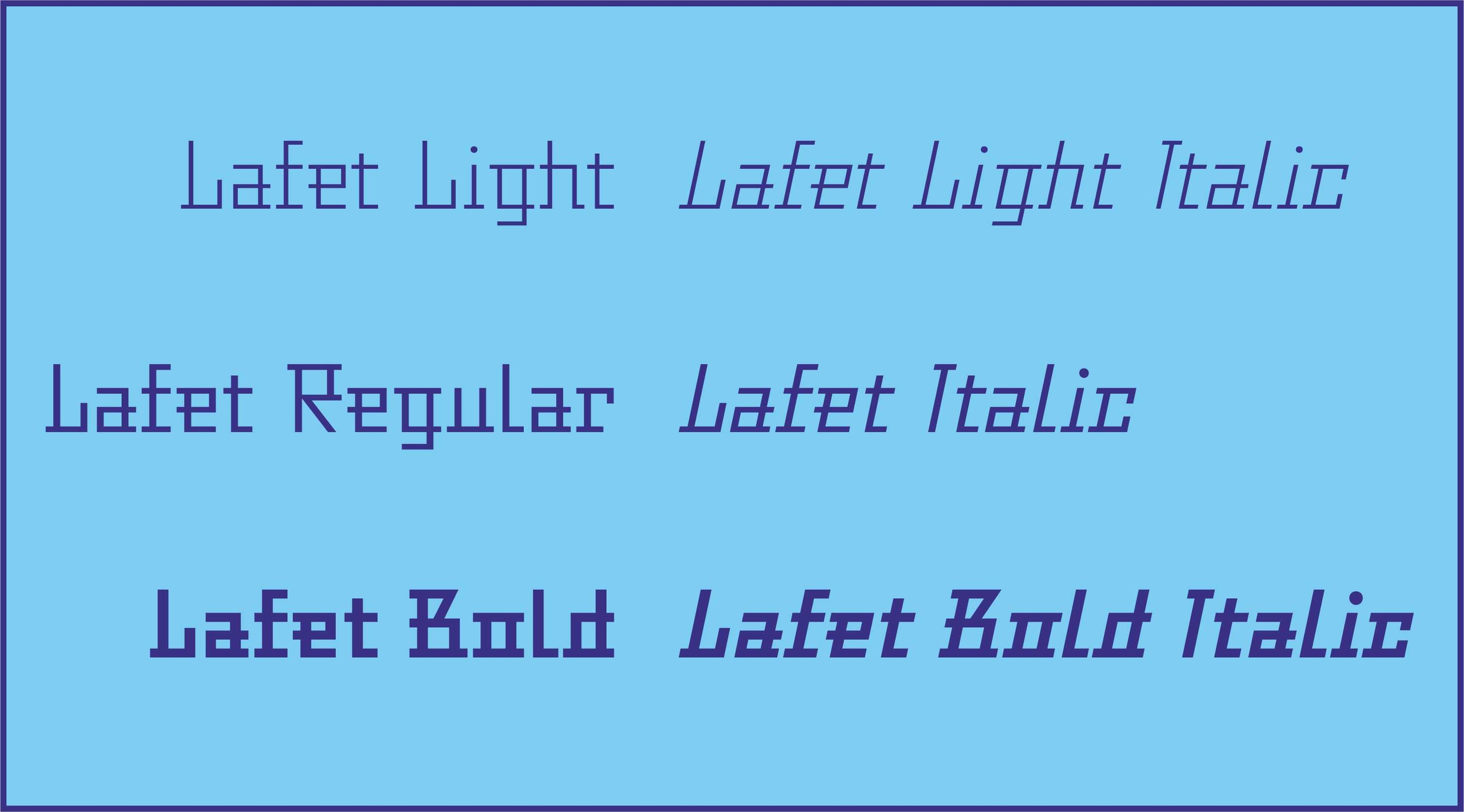
Lafet Font
Lafet Font is perfect for elegant branding, sophisticated corporate identities, luxury fashion magazines, upscale restaurants, premium product packaging, refined editorial design, prestigious awards ceremonies, high-end boutiques, cultured art galleries, exclusive event invitations, distinguished professional services, and sophisticated lifestyle publications.
What makes Lafet Font exciting is its refined sophistication that captures the essence of contemporary elegance and professional distinction through meticulously crafted letterforms that exude quality and cultural refinement. This distinguished typeface embodies the perfect balance of modern sophistication and timeless appeal, combining clean geometric principles with subtle humanist touches that resonate with audiences seeking authentic luxury and professional excellence. The font's elegant character and careful proportions create immediate credibility while maintaining the versatility essential for diverse premium applications and international business communications. Its sophisticated personality makes it perfect for organizations that want to communicate refinement, professionalism, and the enduring appeal of quality craftsmanship and cultural sophistication.
The Lafet Font family includes light, regular, medium, and bold weights, each available with corresponding italic styles. The comprehensive family features elegant alternates, refined ligatures, and sophisticated design elements that enhance the font's distinguished character and provide designers with extensive luxury typography options for complete premium brand systems and professional communications.
Whether you're developing prestigious brand identities, creating sophisticated marketing materials, or designing refined communications, Lafet Font Free Download delivers the elegant authority your distinguished projects require. This premium typeface excels in applications where sophistication and professional credibility are crucial for brand positioning and audience respect in competitive luxury and professional service markets. The font's refined qualities work magnificently across digital platforms and premium print applications, making it an invaluable asset for designers serving affluent and professionally sophisticated clientele. Luxury brands and prestigious organizations choose this font for its ability to communicate refinement while maintaining perfect readability and contemporary relevance that transcends cultural boundaries. The extensive character set supports multiple languages and includes specialized professional symbols, expanding its versatility for international premium applications and multilingual sophisticated communications. Professional designers appreciate its seamless performance across various media while maintaining consistent brand expression and cultural resonance with discerning audiences. When you incorporate this exceptional typeface into your sophisticated communications, you're selecting a typography solution that celebrates refined taste and professional excellence, ensuring your brand connects with distinguished audiences while maintaining the elegant credibility essential for success in competitive luxury markets and professional industries that cater to clients seeking authentic quality, cultural sophistication, and timeless elegance in their business relationships and lifestyle choices.